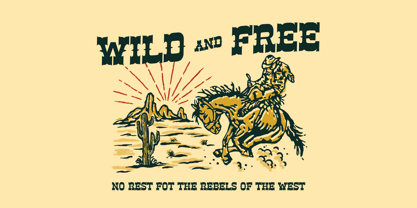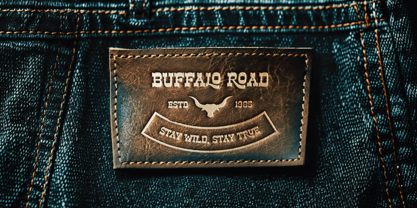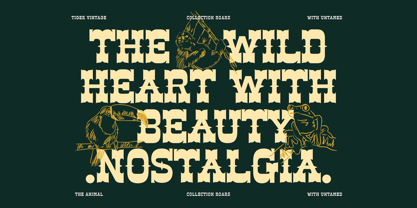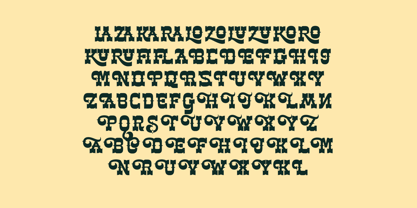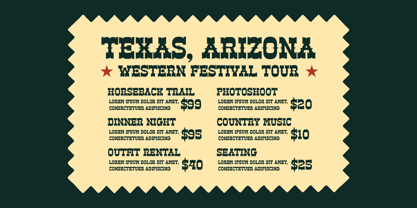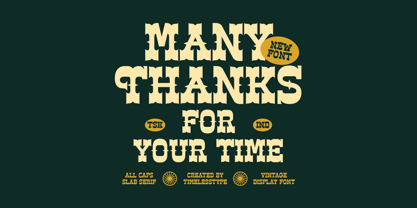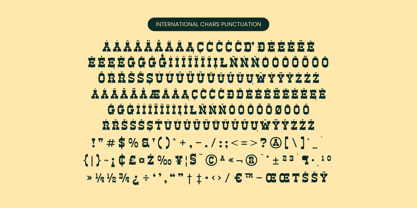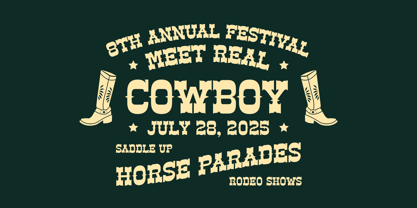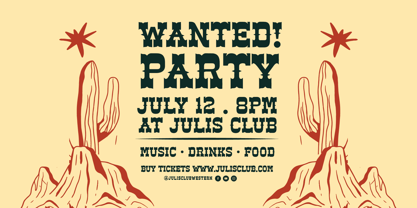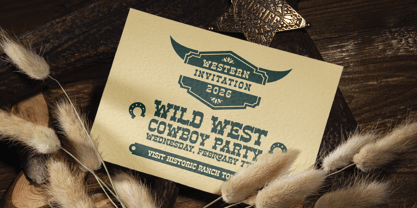
Ankara Trave
by Timelesstype Studio
The Ankara Trave Font Family was designed by Heru Utama Putra and published by Timelesstype Studio. Ankara Trave contains 2 styles and family package options. More about this family
Ankara Trave - Vintage Display Typeface Font , from Timelesstype , Suitable for any projects such as: logos, branding projects, homeware designs, product packaging, mugs, quotes, posters, shopping bags, t-shirts, book covers, name card, invitation cards, greeting cards, label, photography, watermark, special events, and all your other luxury and beautiful projects that need a Luxury Serif taste.